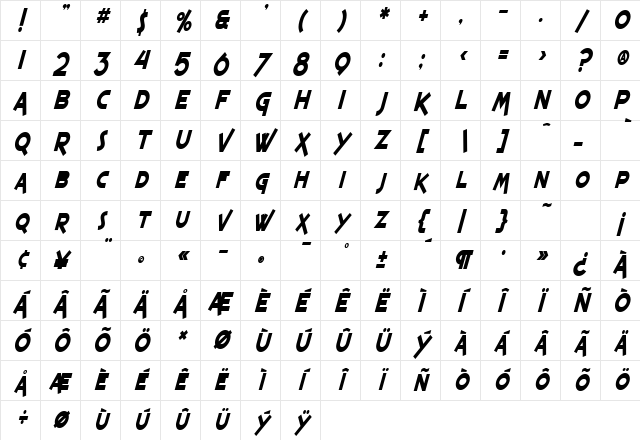
SF Espresso Shack Condensed Bold Italic
Design Context for SF Espresso Shack Condensed
SF Espresso Shack Condensed is a composed and adaptable typeface that performs quietly and consistently across a wide range of design contexts. The slanted form adds forward momentum and visual energy. Its bold stroke weight gives it real presence on the page. Its narrow stance lets it pack a punch even in space-constrained designs.
Pro Tip: Use SF Espresso Shack Condensed for emphasis, pull quotes, and subheadings where its slanted energy can add rhythm to the layout.